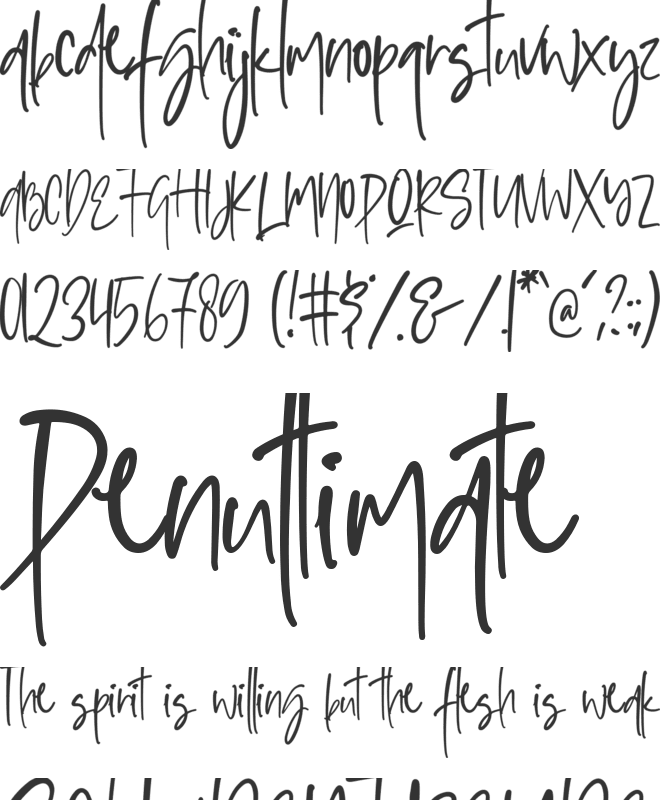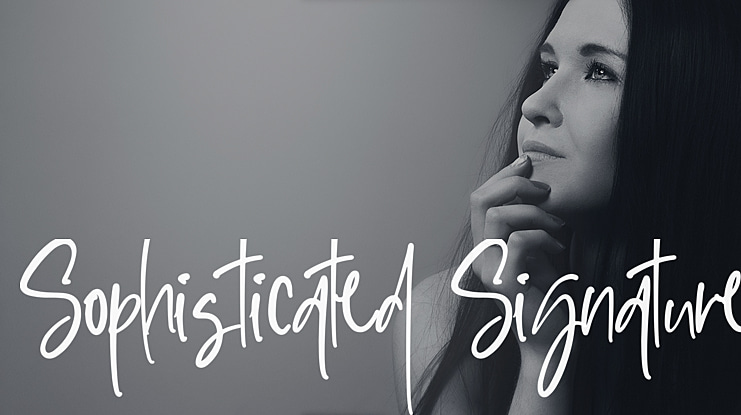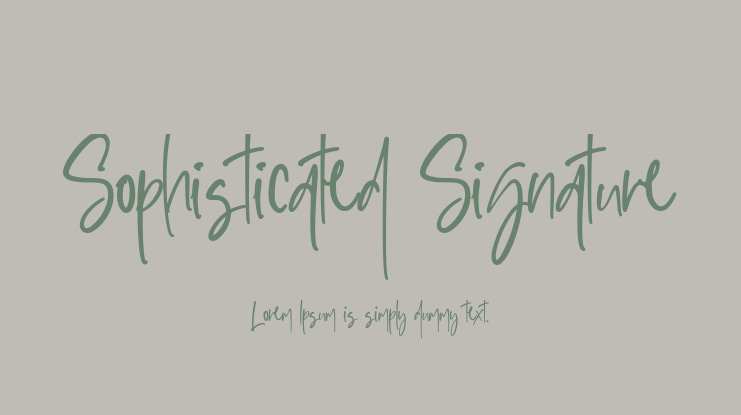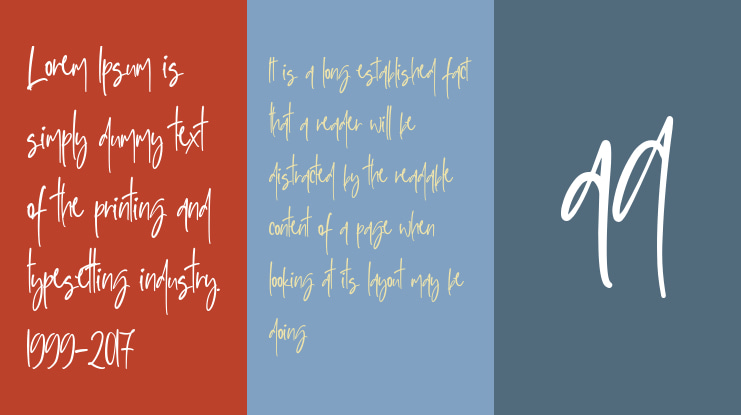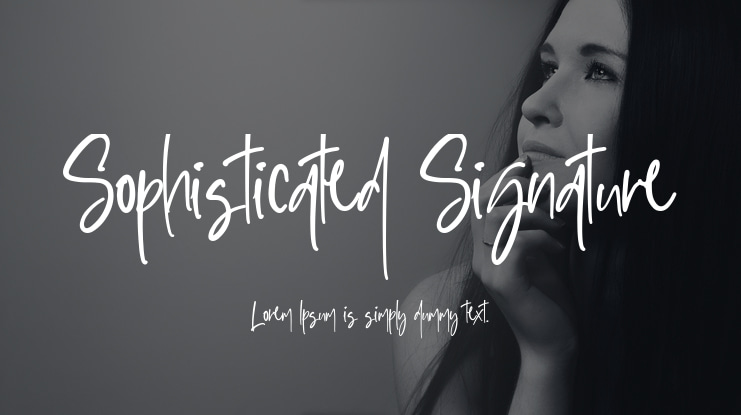
Sophisticated Signature Font
Dimas Prasetyo
This enchanting font will turn any creative idea into a true standout. Perfect fit for all of your logos, branding, social media, etc. Get creative with its unique playfulness, and use it to brighten up any crafting project! Please note that this demo font is for personal use only.!! If you want to use this font for commercial use, you need to purchase a commercial license here: https://www.creativefabrica.com/product/sophisticated-signature/ref/161900/